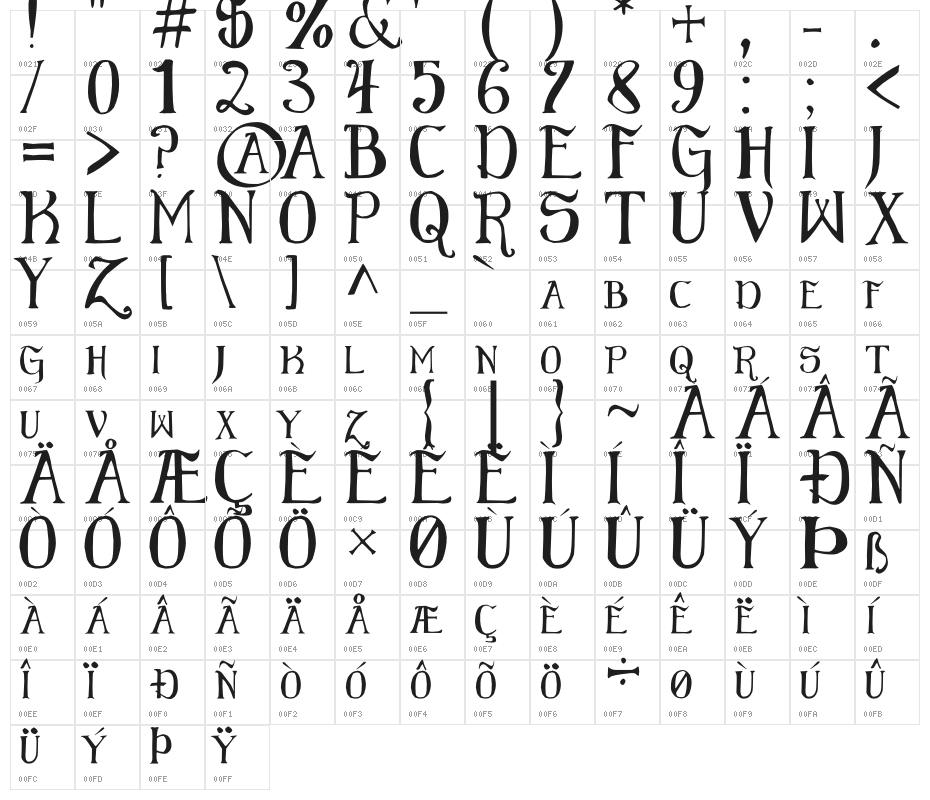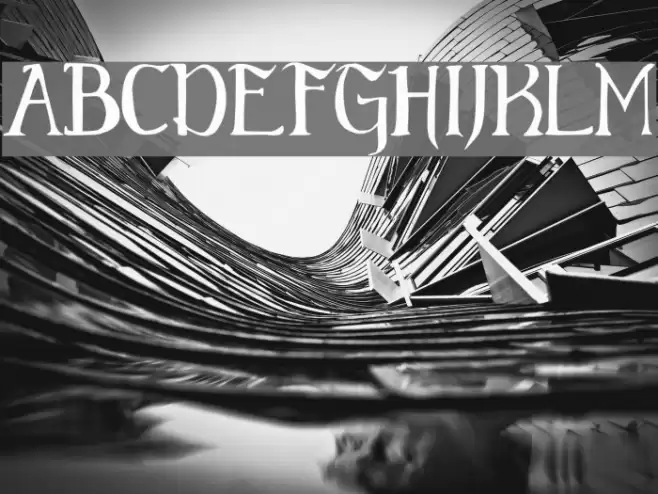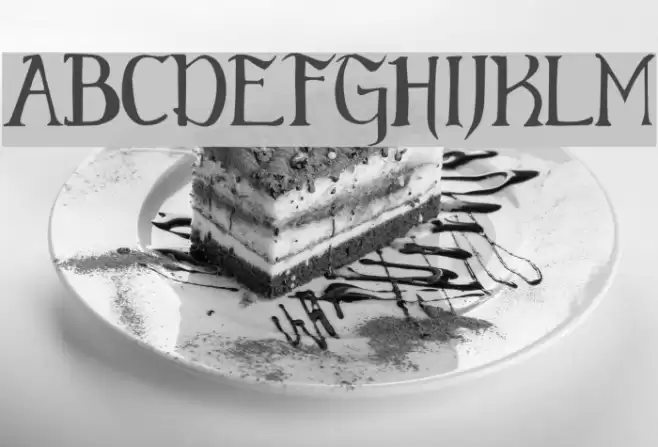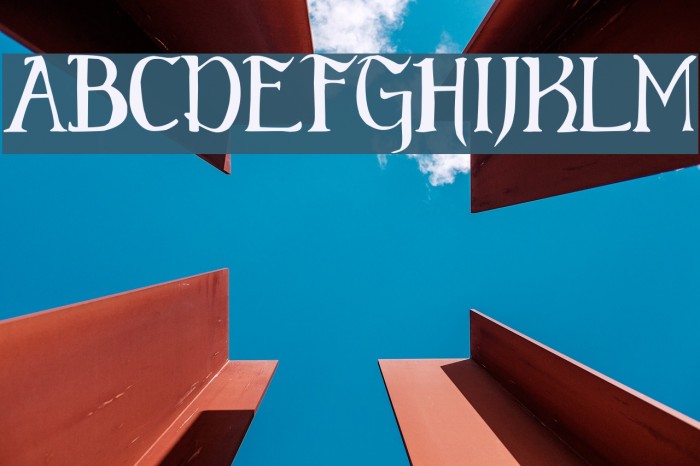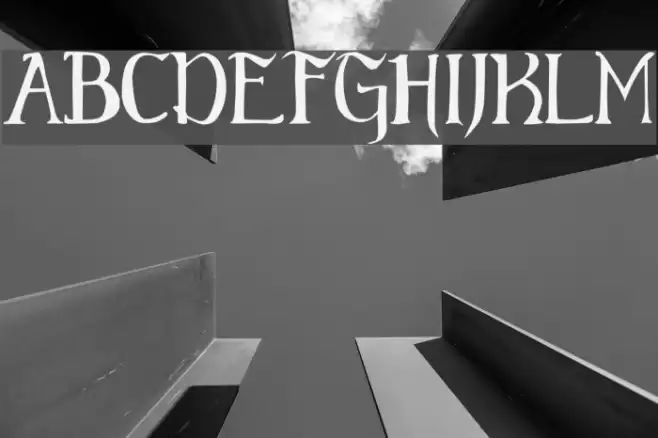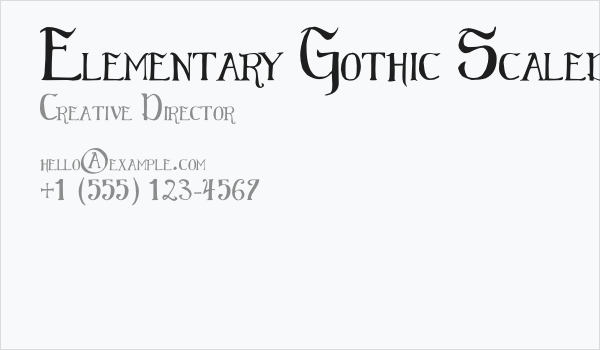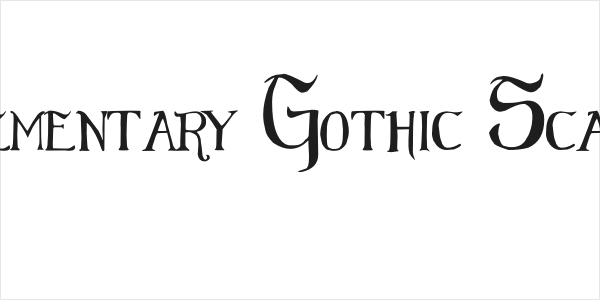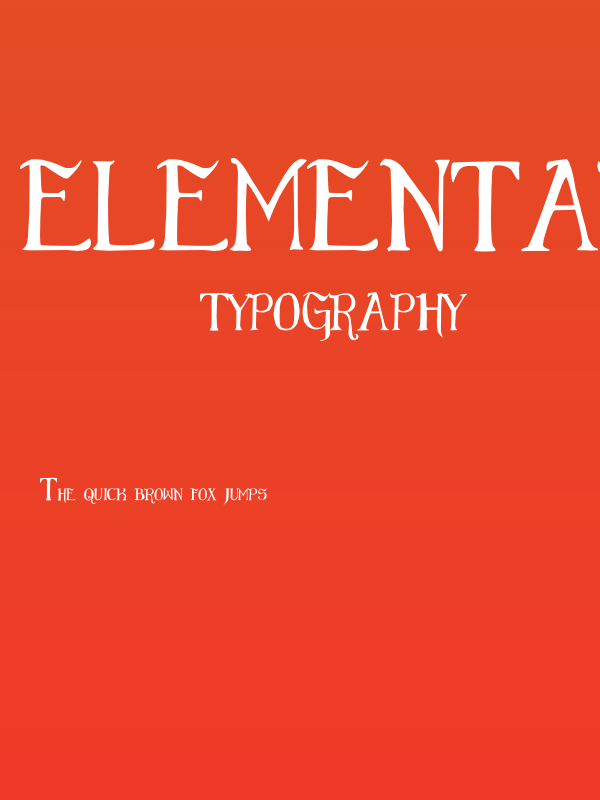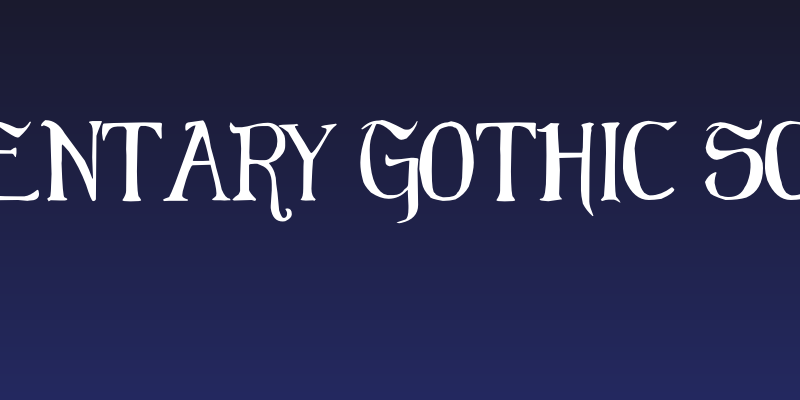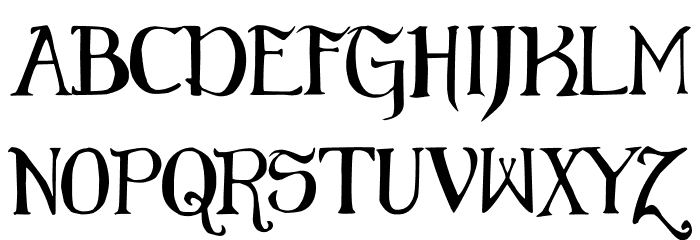
Elementary Gothic Scaled Font
Elementary Gothic Scaled Description
This font features a distinctive Gothic style with sharp, angular lines and intricate detailing. The uppercase letters exhibit a medieval flair, characterized by pointed serifs and elaborate curves, particularly noticeable in letters like 'R' and 'S'. The lowercase letters maintain the same Gothic essence, with a slightly more condensed form, enhancing their readability. Numbers are bold and consistent with the overall theme, while special characters are designed with unique flourishes that add to the font's decorative appeal. The overall appearance is both dramatic and elegant, making it suitable for projects that require a historical or fantasy aesthetic.